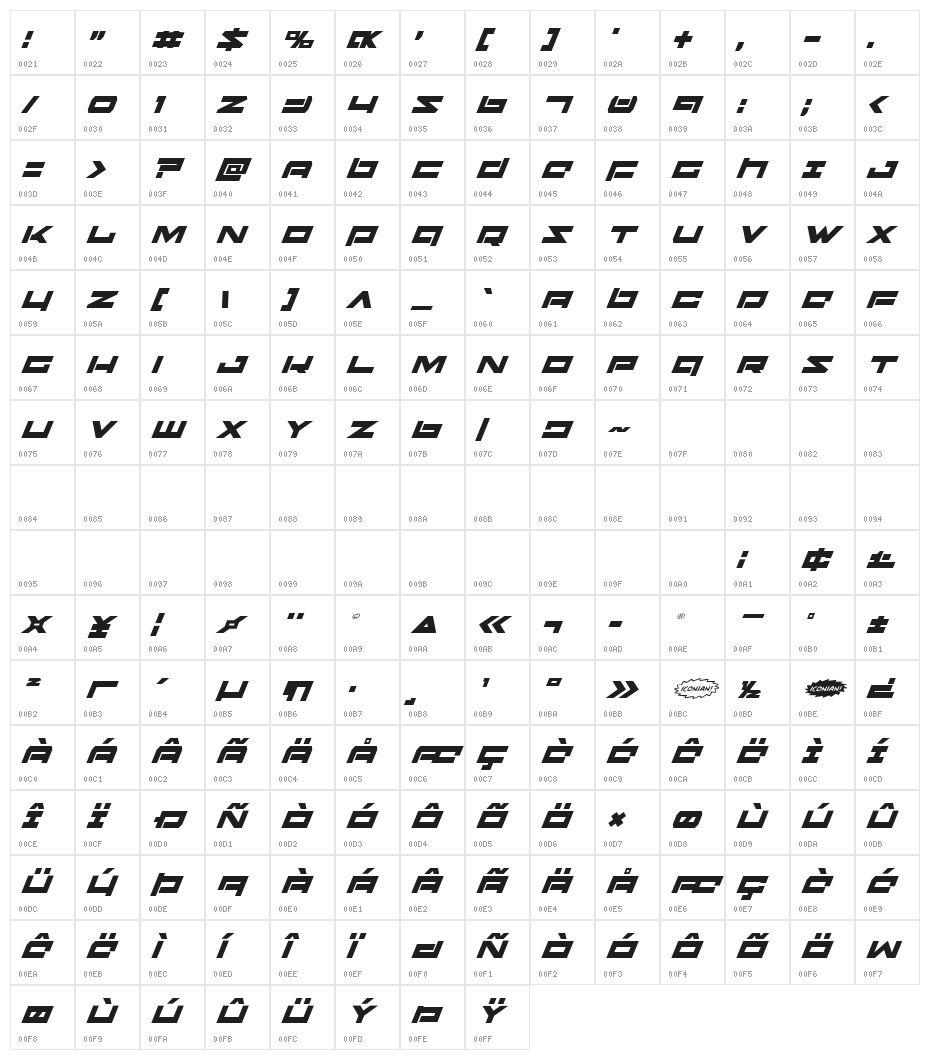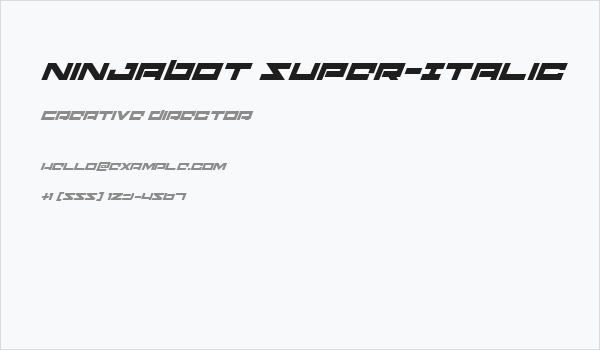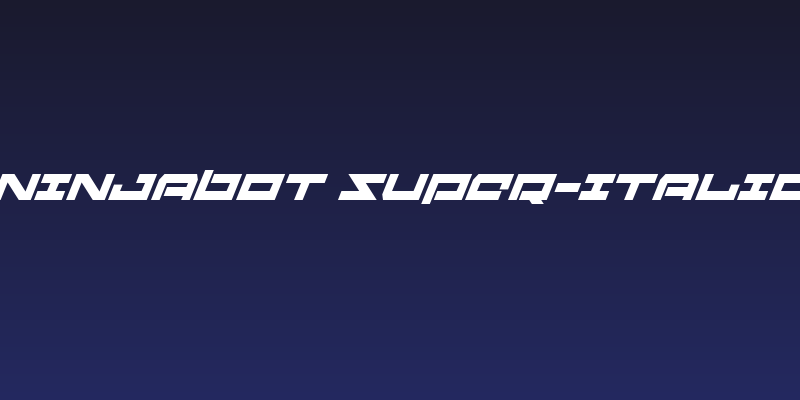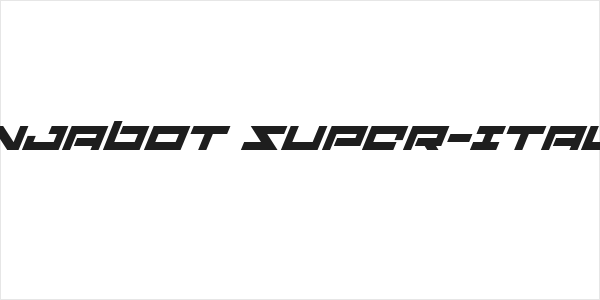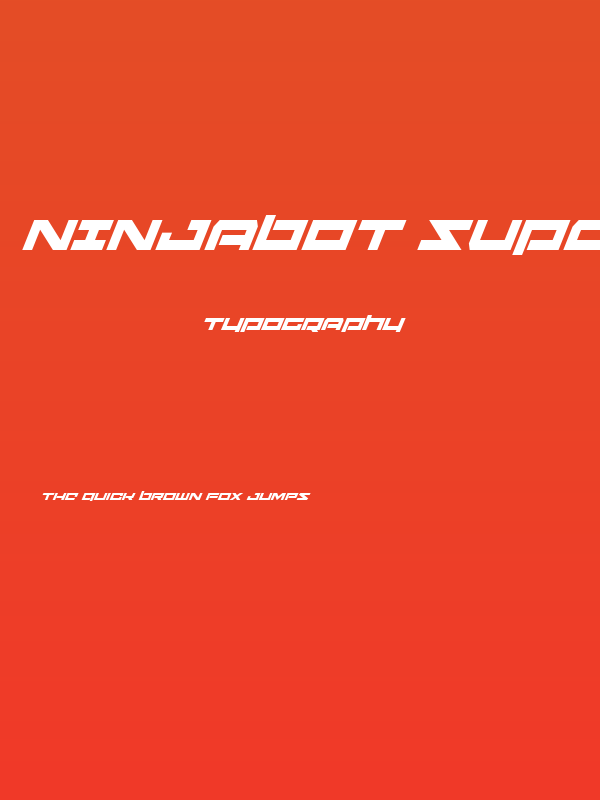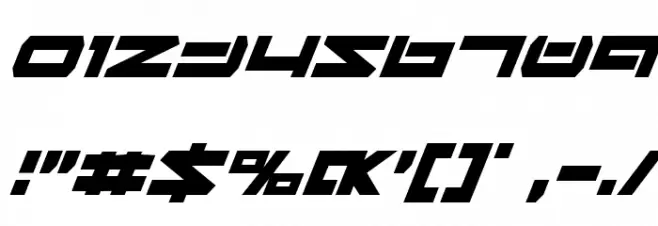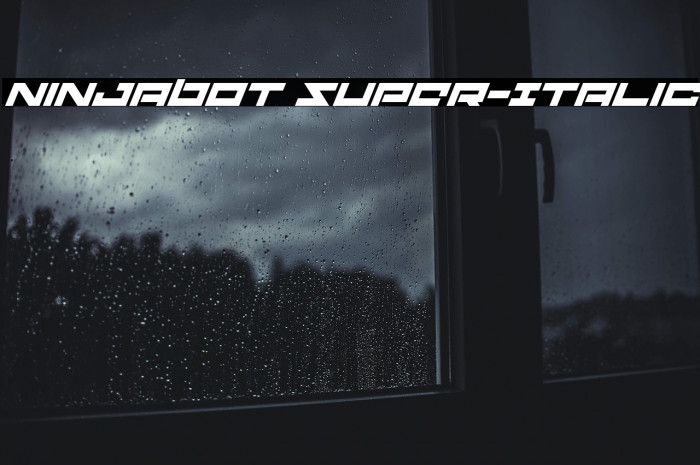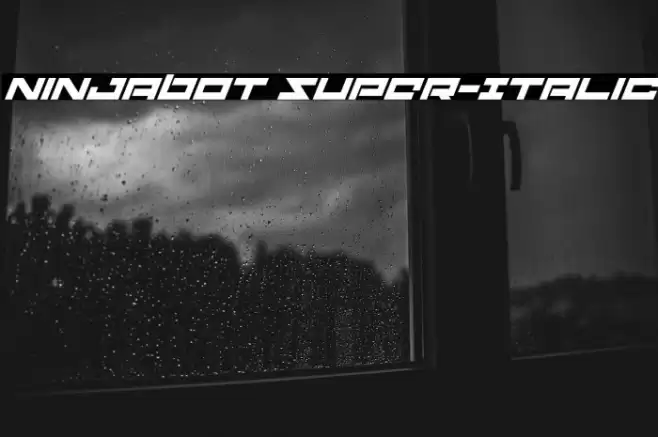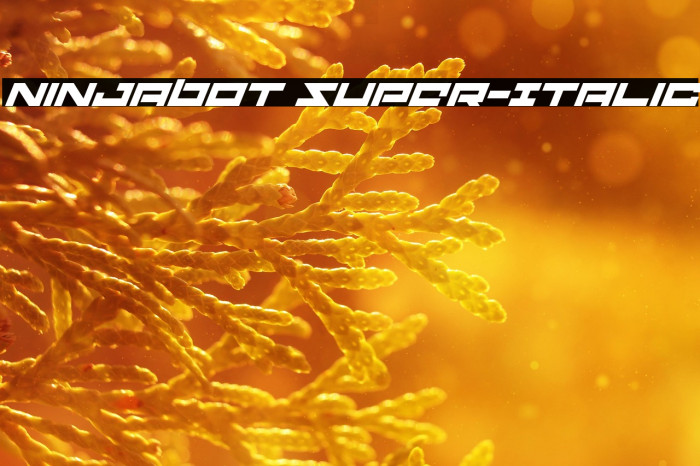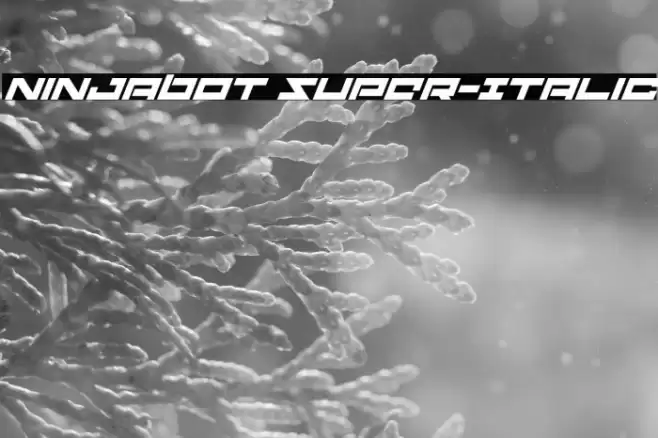
Ninjabot Super-Italic Font
Ninjabot Super-Italic Description
This font features a bold, futuristic design with sharp, angular lines and a distinct italic slant, giving it a dynamic and energetic appearance. The characters are tightly spaced, enhancing its sleek and modern aesthetic. The uppercase and lowercase letters maintain a consistent style, with geometric shapes and a strong presence. The numbers and special characters follow the same design principles, ensuring uniformity across all elements. This font's high contrast in stroke thickness adds to its striking visual impact, making it ideal for attention-grabbing applications.